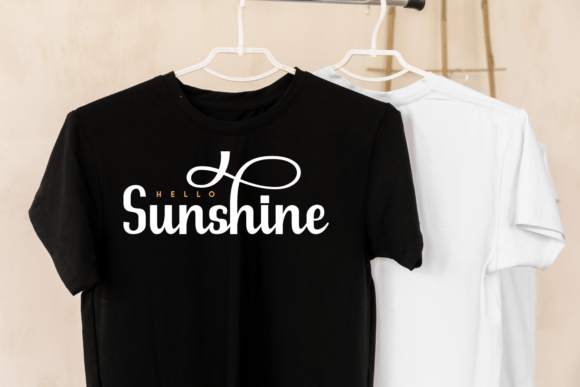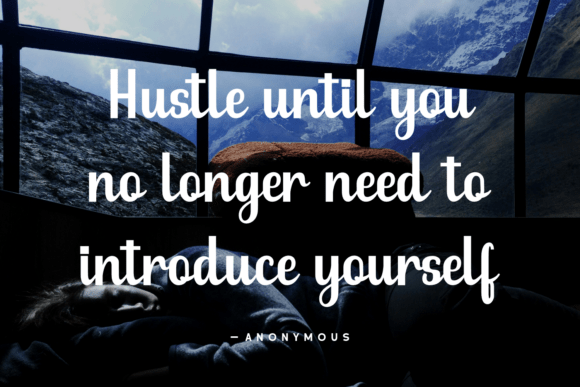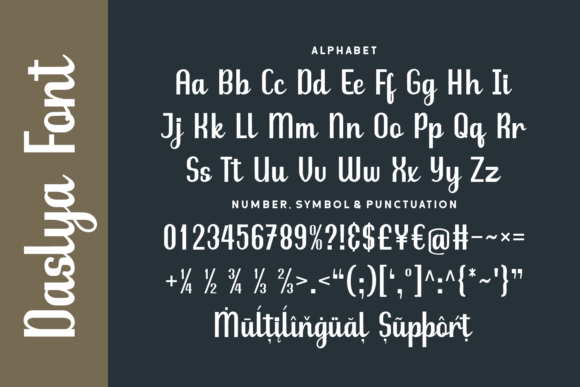
Introducing Daslya Font: Elevate Your Design with Luxurious Flair
Are you on the hunt for a font that exudes luxury, sophistication, and modernity? Look no further than Daslya Font, a stunning script font that is sure to elevate your design game. With its grand swashes and clean curves, Daslya is the perfect choice for designers and crafters looking to add a touch of elegance to their projects.
What Makes Daslya Font So Special?
Daslya Font is a masterclass in refined design. Its luxurious and modern script style is characterized by grand swashes that add a touch of drama and flair to any design. The clean curves and precise lines ensure that the font remains highly legible, even at smaller sizes. This makes Daslya incredibly versatile, suitable for a wide range of applications from upscale branding and product packaging to editorial headlines and more.
Key Features of Daslya Font
- Luxurious and Modern Script Style: Daslya boasts a sophisticated script style that is perfect for creating high-end designs.
- Grand Swashes: The font features beautiful grand swashes that add a touch of elegance and drama to your designs.
- Clean Curves: The clean and precise curves ensure that Daslya remains highly legible, even at smaller sizes.
- Refined yet Eye-Catching: Daslya strikes the perfect balance between refinement and visual impact, making it perfect for designs that need to stand out.
Perfect for Upscale Branding and Packaging
Daslya Font is an excellent choice for brands looking to create a luxurious and high-end image. Its sophisticated design makes it perfect for:
- Logo Design: Create a lasting impression with a custom logo that showcases your brand’s personality and style.
- Product Packaging: Elevate your product packaging with Daslya’s elegant design, perfect for high-end products and premium brands.
- Editorial Headlines: Add a touch of luxury to your editorial designs, including magazines, newspapers, and online publications.
Tips for Using Daslya Font Effectively
To get the most out of Daslya Font, consider the following tips:
- Pair with Neutral Fonts: Pair Daslya with neutral fonts to create a striking contrast and make your design stand out.
- Use for Headlines: Use Daslya for headlines and titles to add a touch of luxury and sophistication.
- Experiment with Swashes: Don’t be afraid to experiment with the grand swashes to add a unique touch to your design.
Where to Use Daslya Font
Daslya Font is incredibly versatile and can be used in a wide range of design projects, including:
- Branding and Identity: Create a luxurious brand image with Daslya.
- Product Packaging: Elevate your product packaging with Daslya’s elegant design.
- Editorial Design: Add a touch of luxury to your editorial designs.
- Advertising: Create eye-catching ads with Daslya’s sophisticated design.
Daslya Font is a luxurious and modern script font that is sure to elevate your design game. With its grand swashes and clean curves, Daslya is perfect for upscale branding, product packaging, and editorial headlines. Whether you’re a designer or crafter, Daslya is an excellent choice for anyone looking to add a touch of elegance and sophistication to their designs.